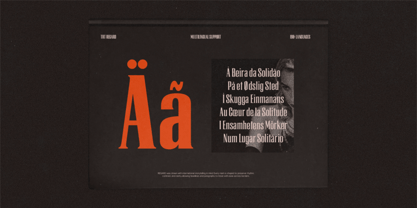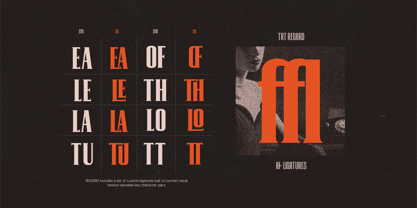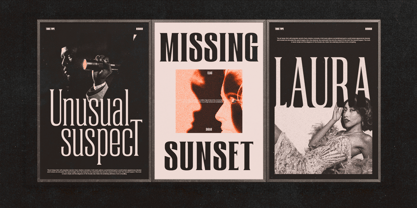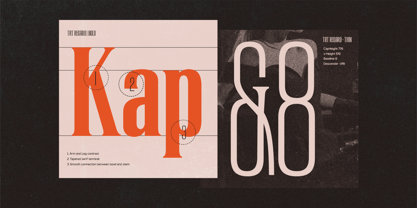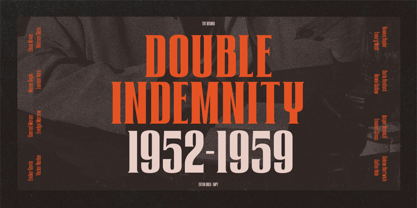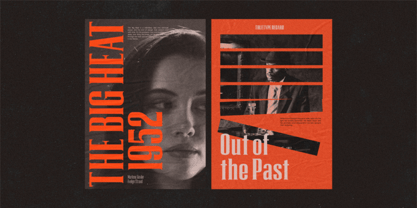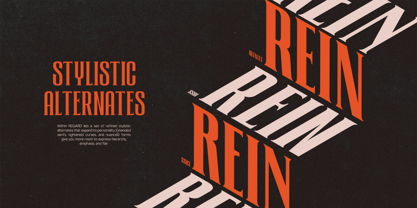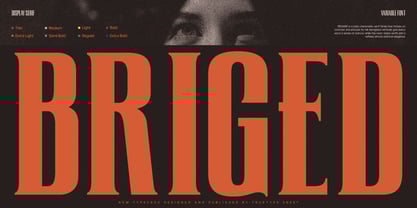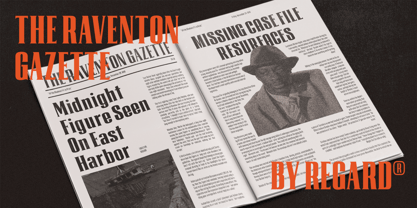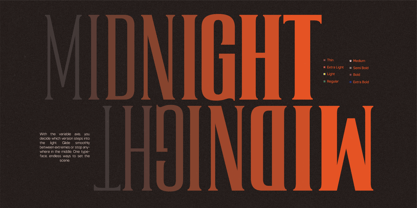
Trt Briged
by True Type Lab
The Trt Briged Font Family was designed by Yusilo Oktaprima Ardani and published by True Type Lab. Trt Briged contains 8 styles and family package options. More about this family
TRT BRIGED Condensed is a striking sans serif display font with high impact and razor-sharp presence. Built with tall proportions and tight curves, it brings intensity and elegance to any design it touches. With its condensed structure, clean verticals, and strong rhythm, Regard Condensed is perfect for posters, logos, headlines, and branding work that demand attention. Whether you're designing for fashion, music, media, or culture, Regard Condensed delivers a powerful tone. It's bold without being brutal, artful without being overly ornate — a typeface that knows how to lead the visual conversation.
Designers: Yusilo Oktaprima Ardani
Foundry: True Type Lab